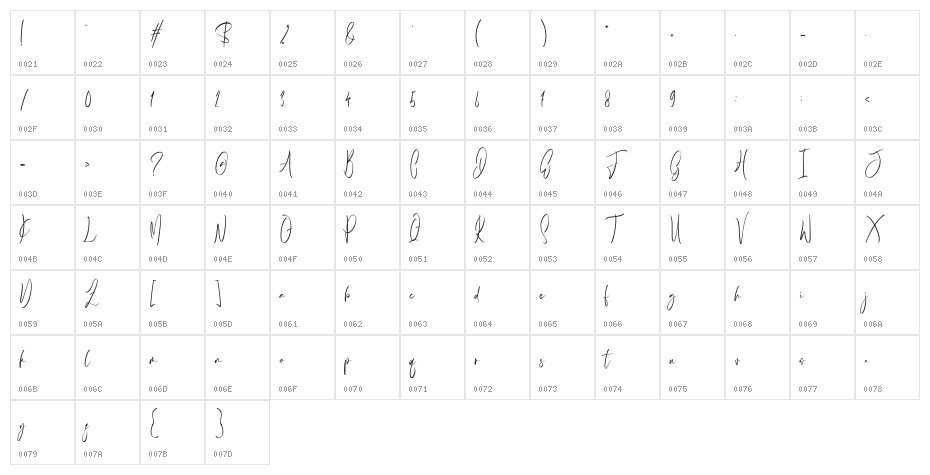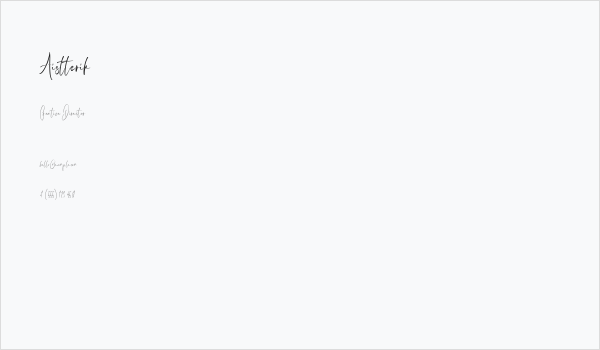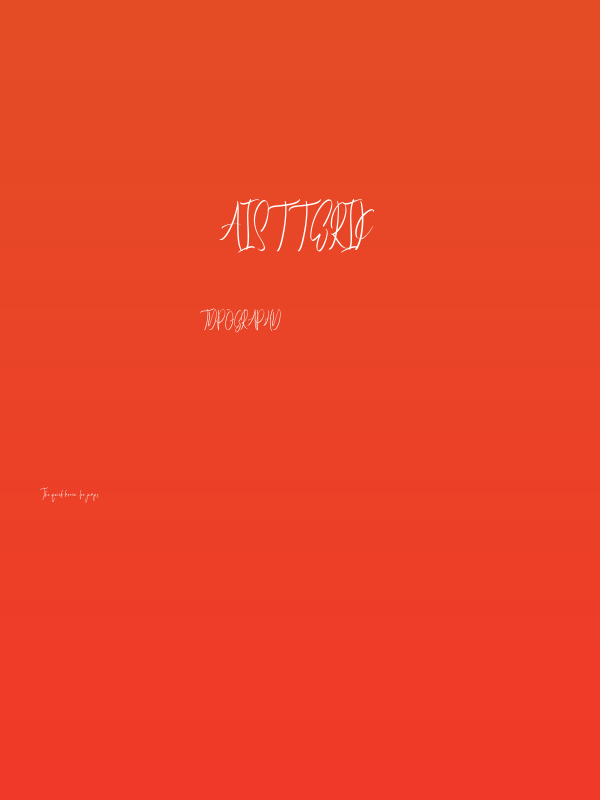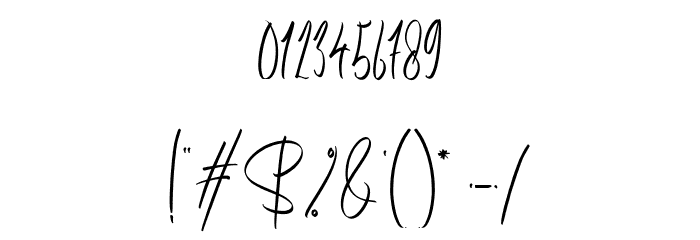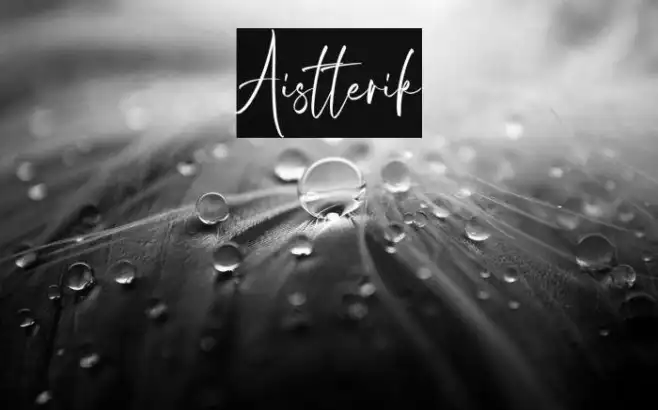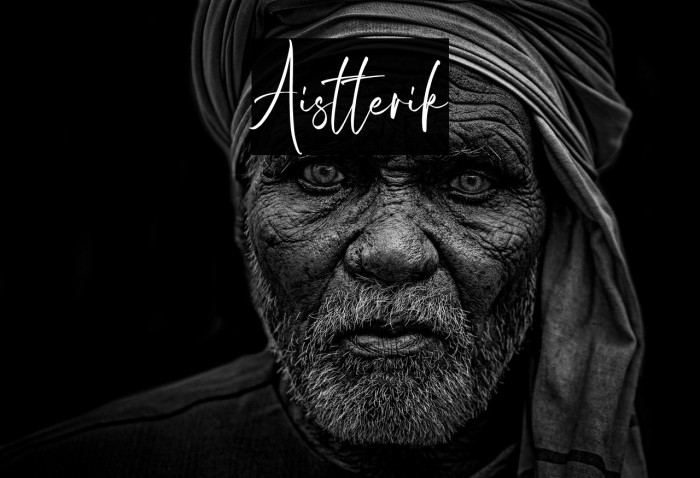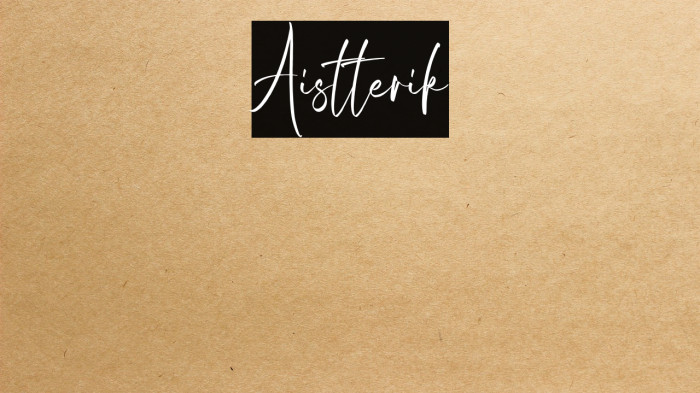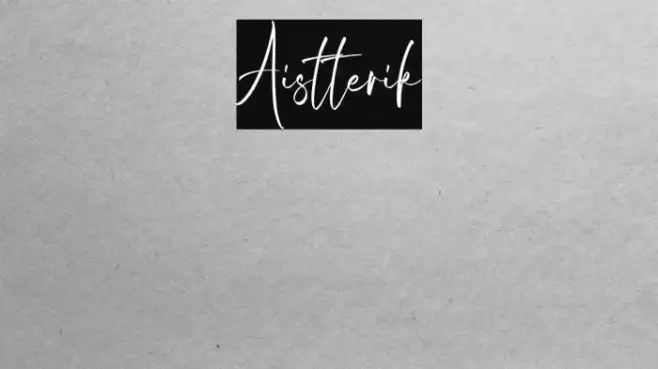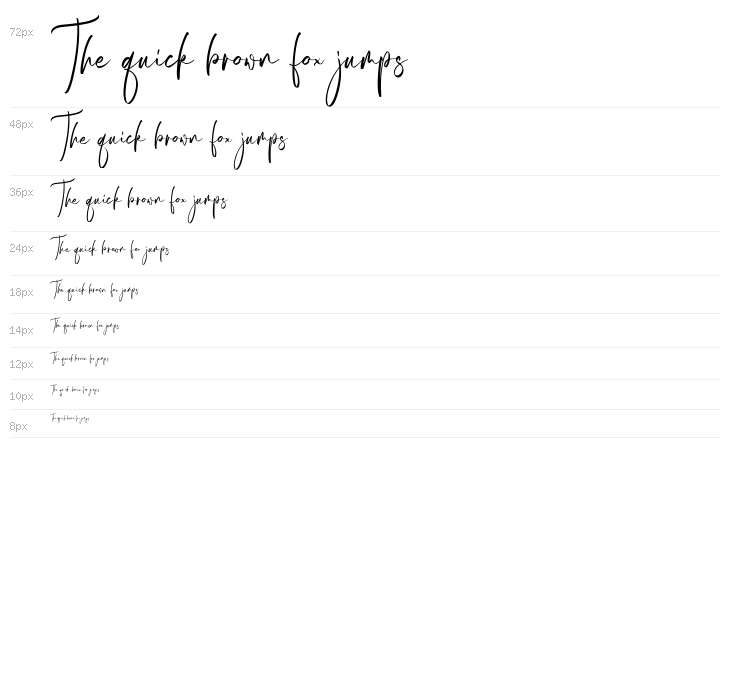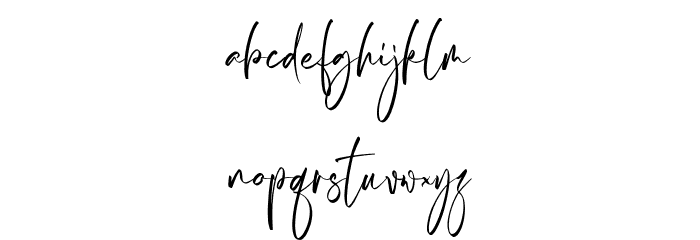
Aistterik Font
Aistterik Description
This font features an elegant and flowing script style, characterized by its graceful, looping strokes and a handwritten aesthetic. The uppercase letters are tall and slender, with a distinct flair that adds a touch of sophistication. The lowercase letters maintain a consistent flow, enhancing the overall fluidity of the design. Numbers and special characters are crafted with the same attention to detail, ensuring a cohesive look across all elements. The font's delicate lines and artistic curves make it ideal for projects that require a personal and refined touch.
| Overall Style | Elegant, Artistic |
| Proposed Projects | Ideal for wedding invitations, greeting cards, branding, and elegant packaging. |